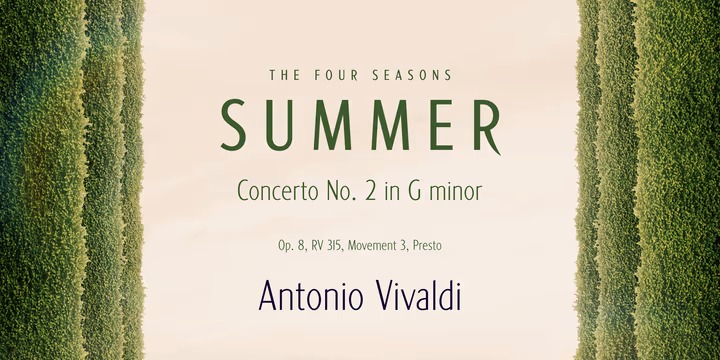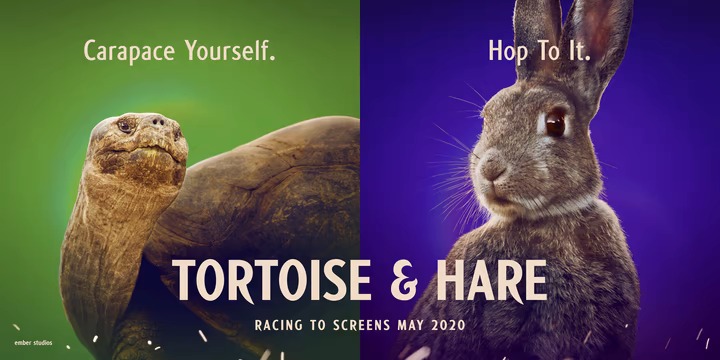
Afire Sans Serif Font
This font is a sans serif type family of six weights plus matching italics. It was designed by Bunny Dojo in 2020. Through clean legibility and gentle embellishment, Afire delivers lively bounce with sophistication.
Its optimum legibility, clean, and geometric look is perfect branding, brochures, greeting cards, quotes, posters, stationary, design titles, blog headers, and much more.